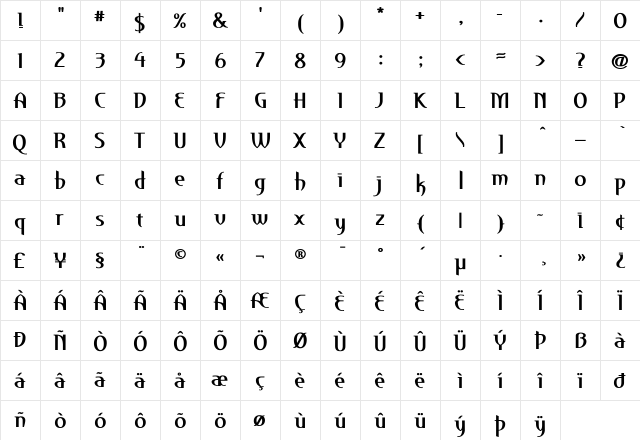
Perceval Bold
| Foundry | \(c\) Rebels, Designed by Michel Valois |
Design Context for Perceval Typeface
Perceval is a composed and adaptable typeface that performs quietly and consistently across a wide range of design contexts. Its bold stroke weight gives it real presence on the page.